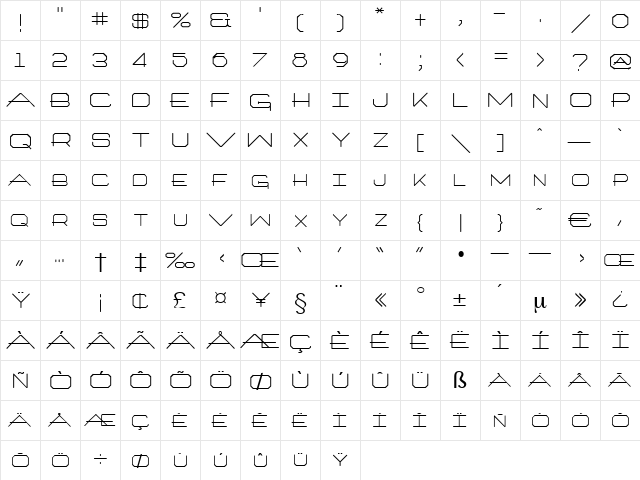
Extreme Regular
Design Context for Extreme Typeface
Extreme takes a measured approach to typography — its balanced proportions and neutral character make it a reliable workhorse for both digital and print work.